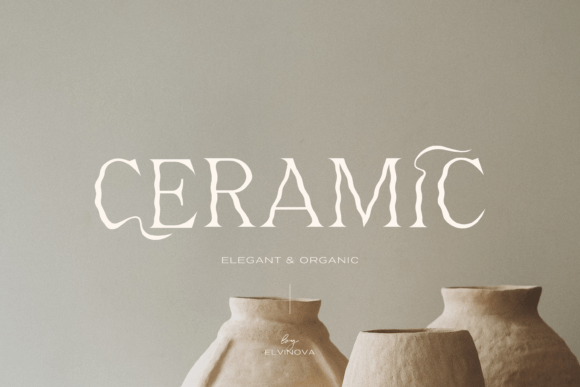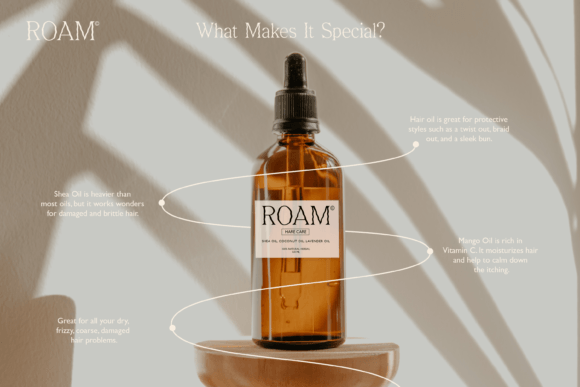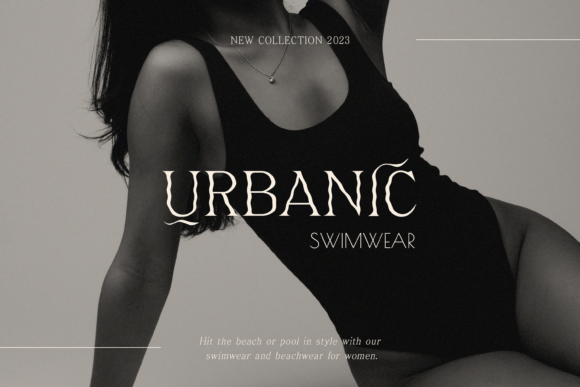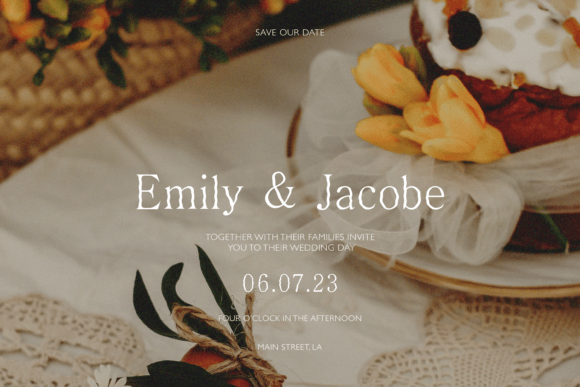
Ceramic Font: Elegant Display Typography for Modern Branding
About the Ceramic Font
From logos to headlines, the Ceramic Font is the perfect choice for making a lasting impression. Ceramic is a modern and elegant font with beautiful curves that add a touch of sophistication to your text. Its smooth lines and stylish design make it perfect for projects that require a contemporary and refined look. Whether you’re crafting invitations, logos, or other designs, Ceramic’s graceful curves bring a sense of modern beauty to your work. Choose Ceramic for a chic and timeless aesthetic that effortlessly elevates your typography.
Ceramic Font Usage Examples
Ceramic Font Example